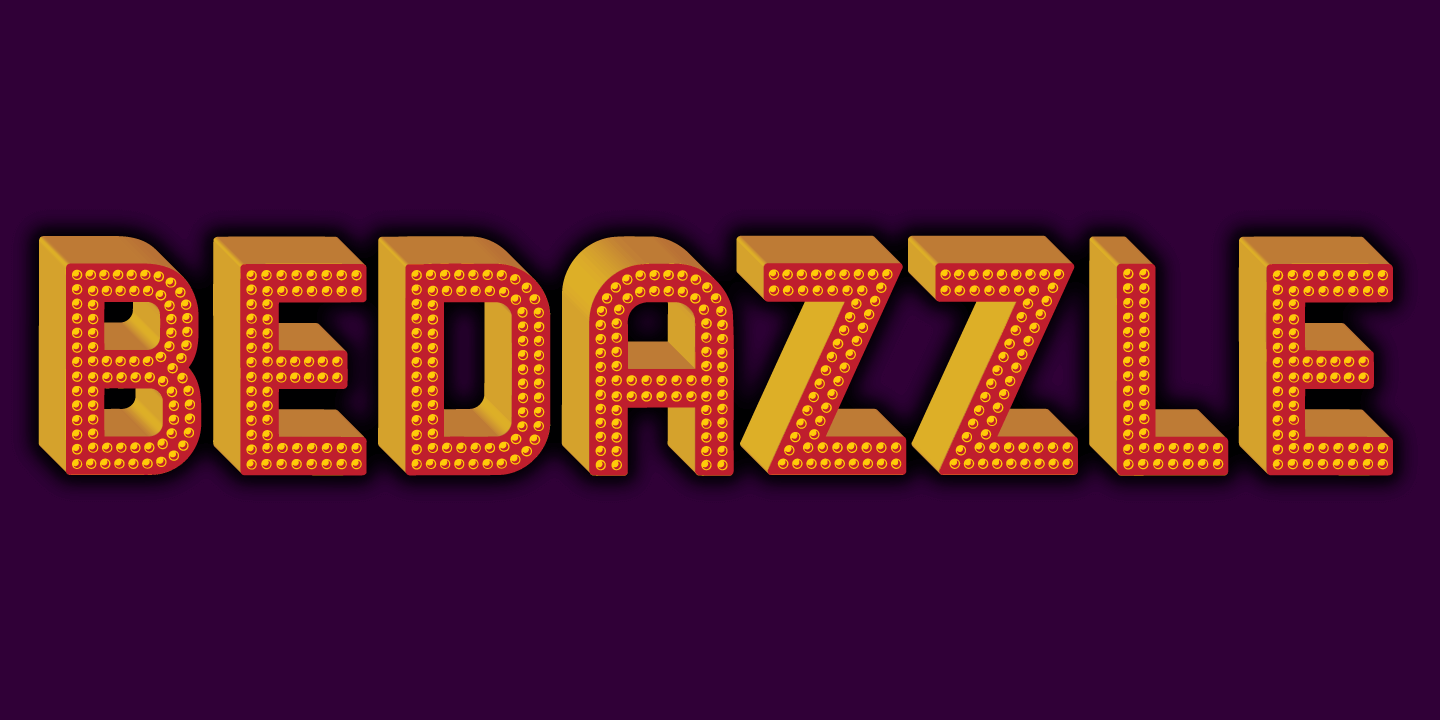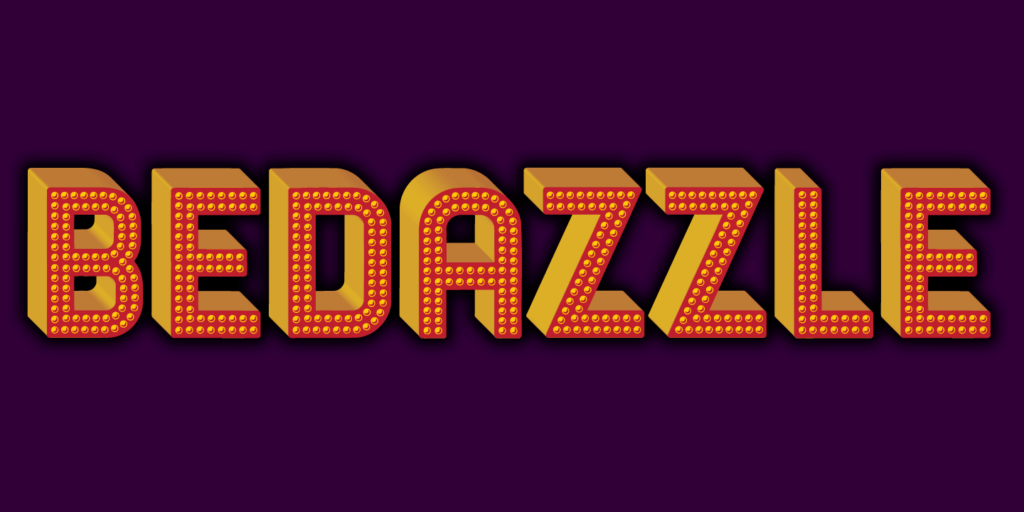
Bedazzle
About Bedazzle
With a delicious twinkling in its eye, Bedazzle evokes a theatrical vibe. Filled with a pattern of glowing lights, it offers a festive journey for the eye as well as a tactile ambiance. Two fonts, an ornamented bright plus a solid version provide ample…